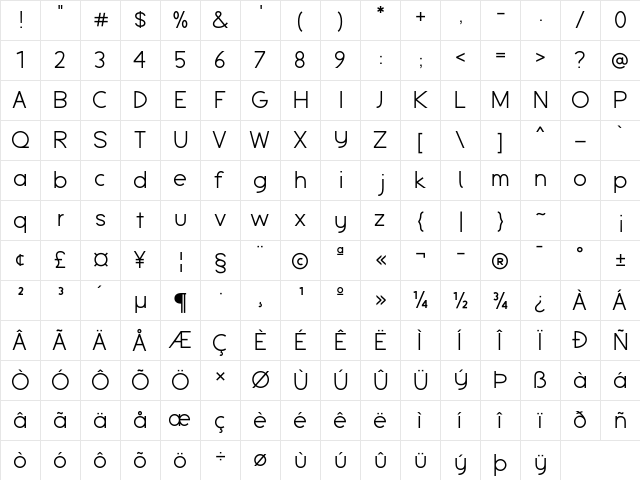
Espera Regular
| Designer | Barbara Trein |
Design Context for Espera Typeface
Espera is a composed and adaptable typeface that performs quietly and consistently across a wide range of design contexts.